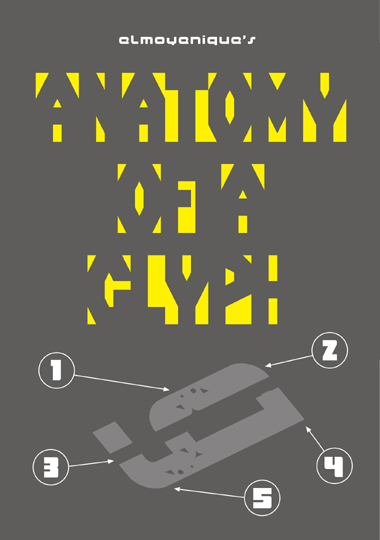
• A summer fun (and the result of a small bet). My oldest son (16 yo) had to reserve some seats for us and he came to take a scissors, cardboard, fold it and do what you see in the first sample, all in less than two minutes. I liked so much that. I promised him to do something similar (maybe) in FS.
A summer fun (and the result of a small bet). My oldest son (16 yo) had to reserve some seats for us and he came to take a scissors, cardboard, fold it and do what you see in the first sample, all in less than two minutes. I liked so much that. I promised him to do something similar (maybe) in FS.
Please good people omit the jokes about that my son does best fonts than I, and in less time! Thank you.
Hey! I love innocence of children
your font have this spirit
Bravo! Again I love it
nice Sample Pic as well (inspire by EM42 ;)
a nice collaboration between father and son :) this is really nice and has a very non-modular, random and fun feel to it. great job.
I don't understand all what you say but i can tell you that I think it's a nice font you create.
I like it :))))
I really like this one. The sample has shown a colorful paper cut effect. Great.
A font to put a smile on your face - well done :)
no eYe/FS logo?